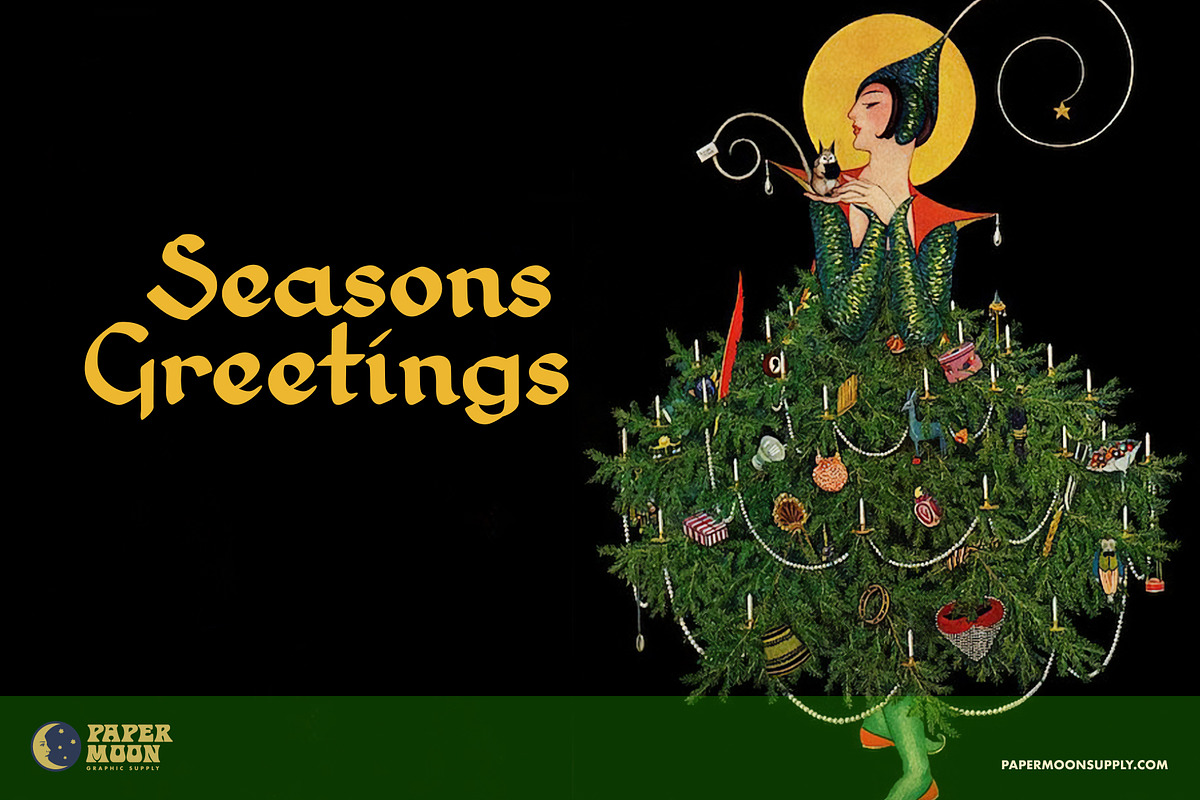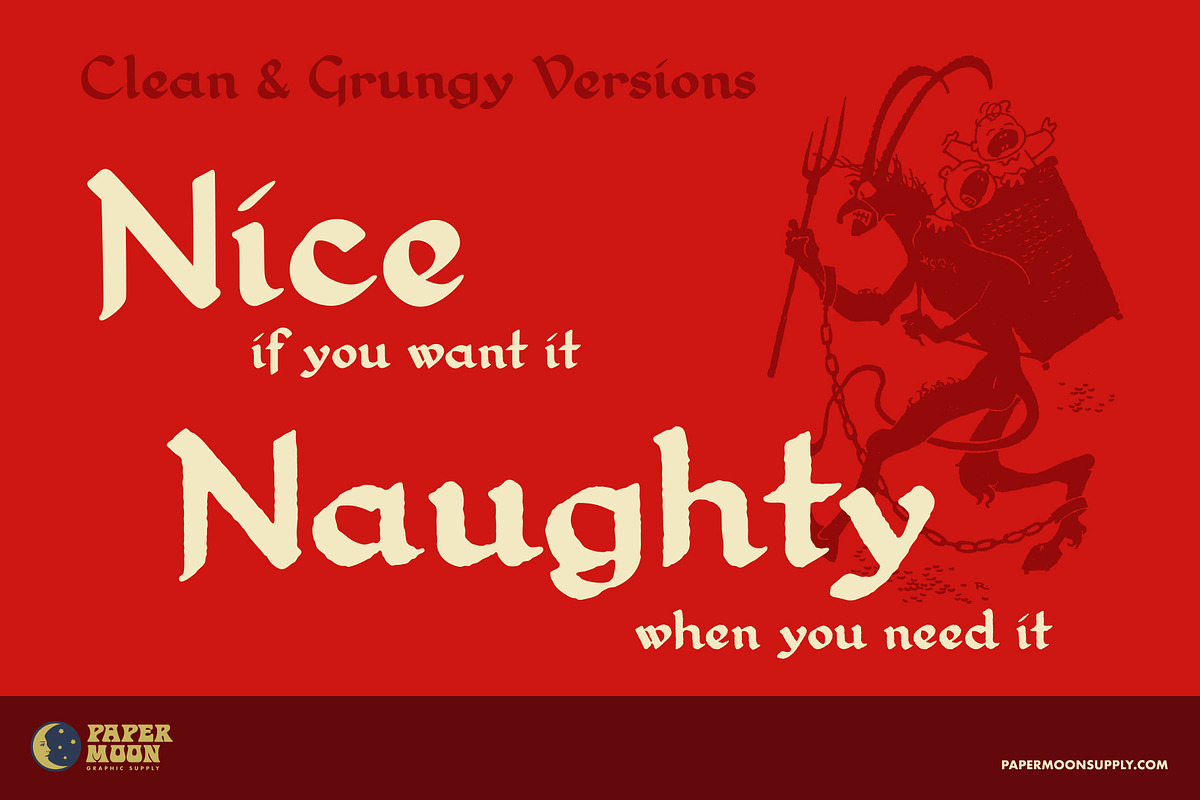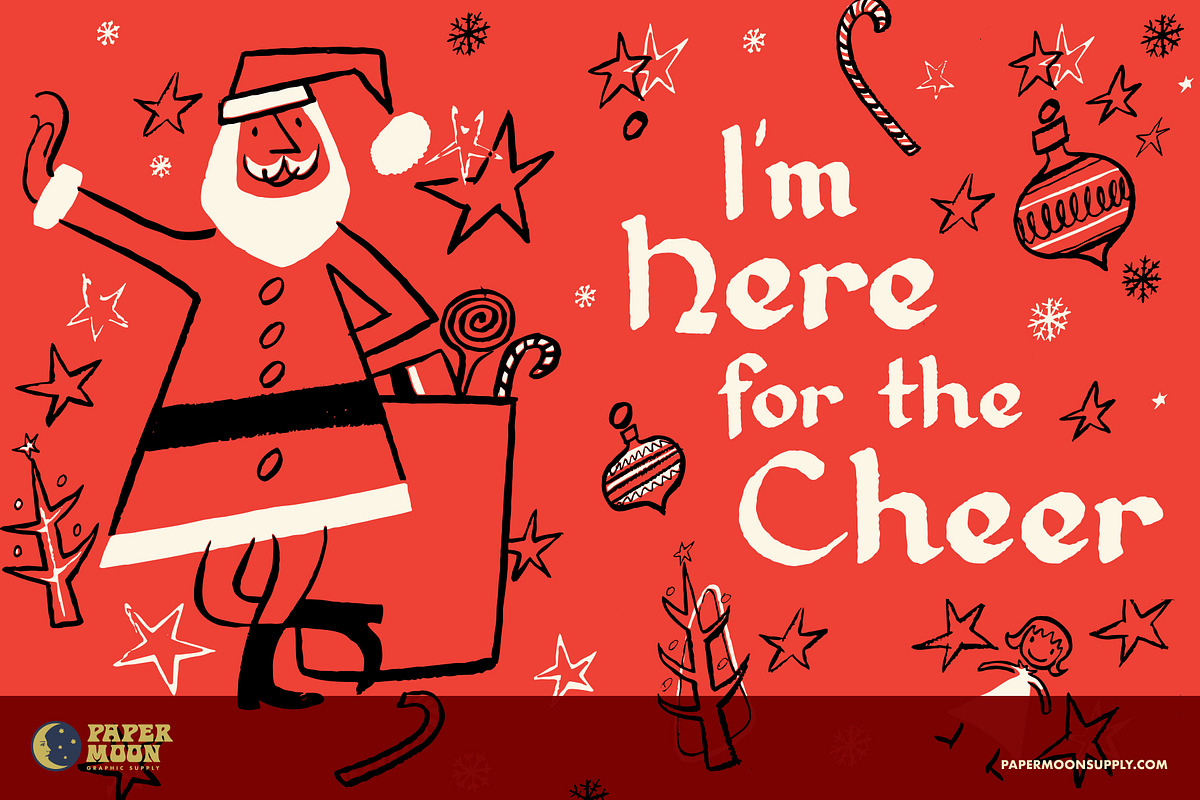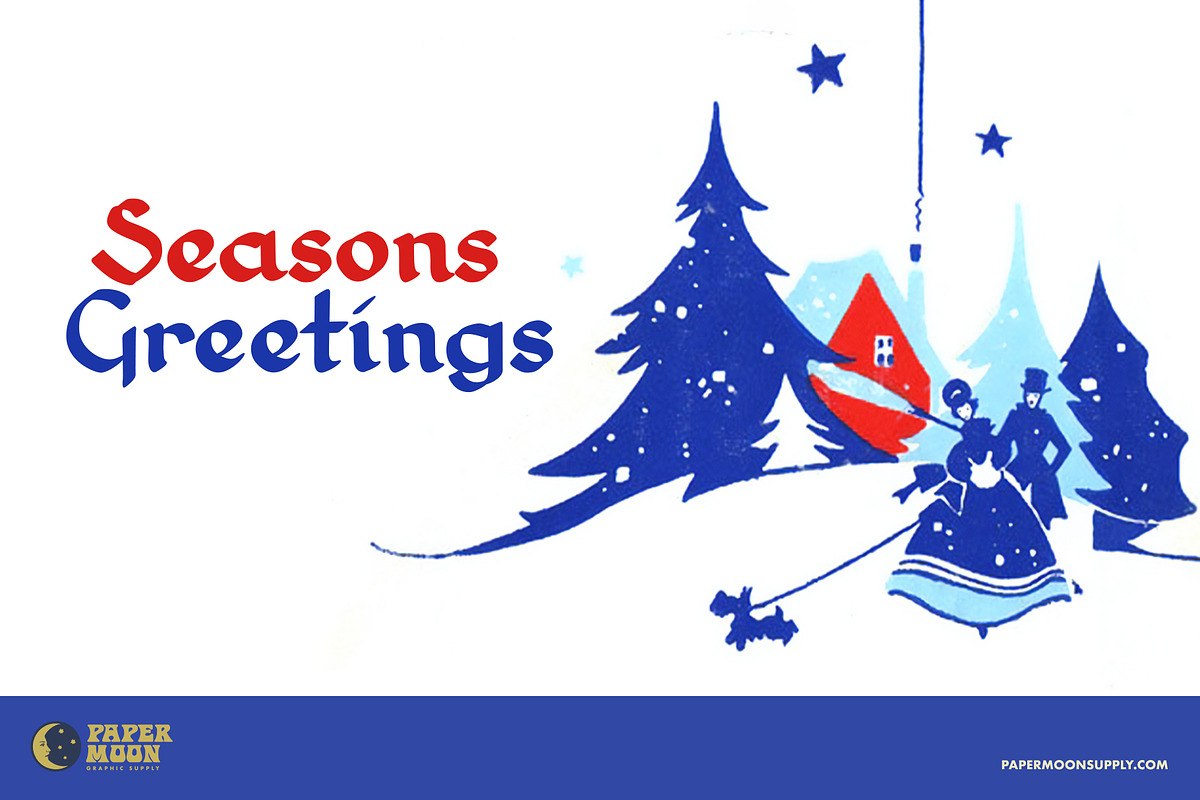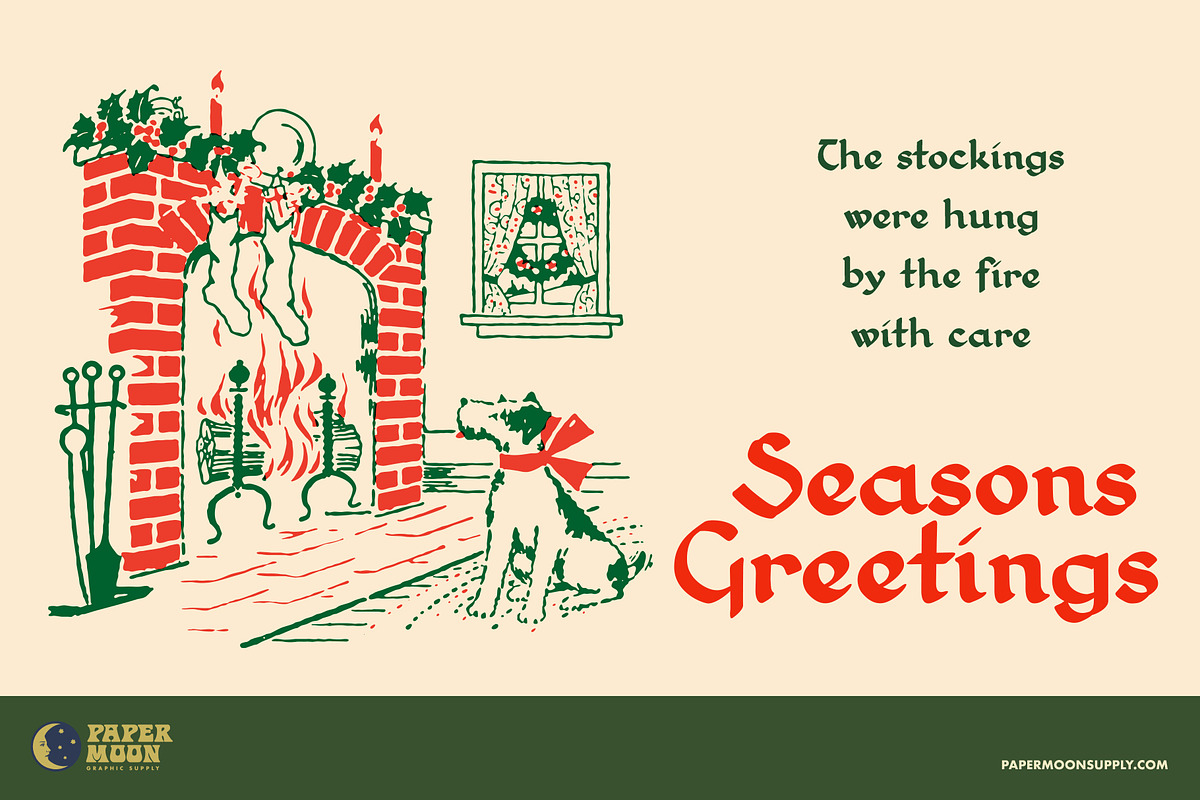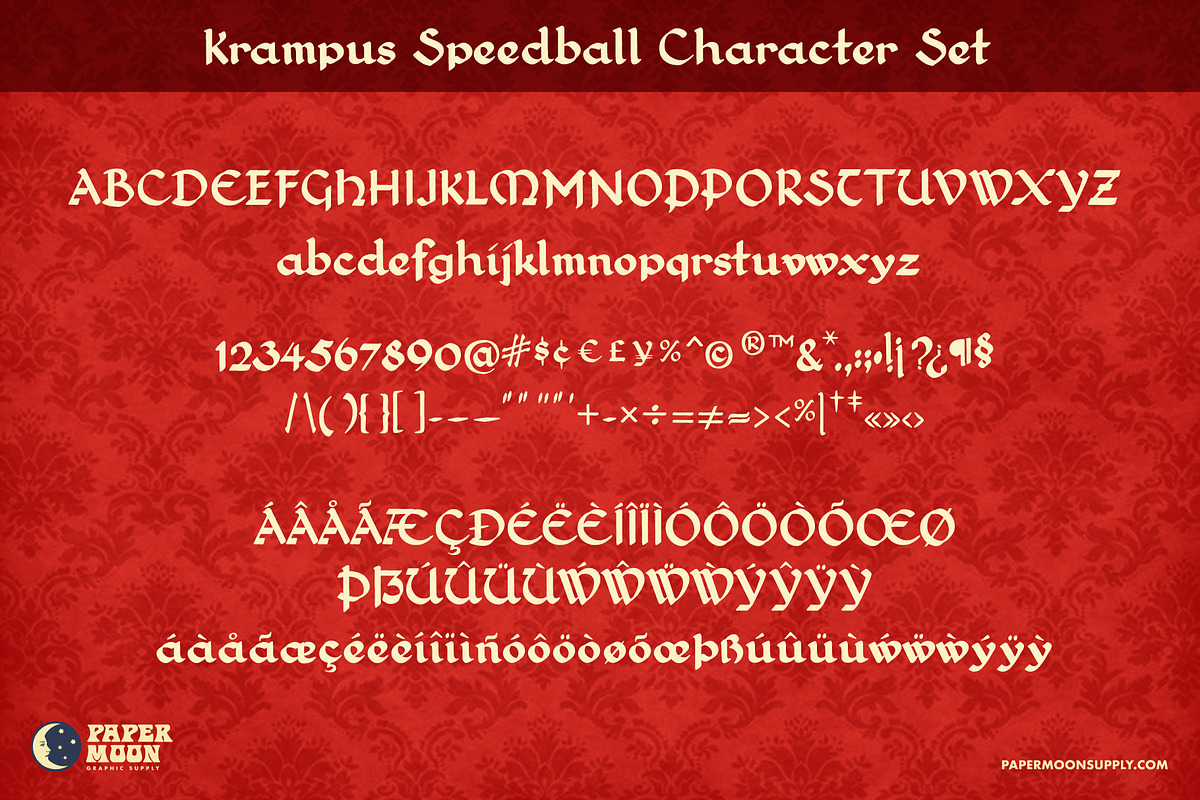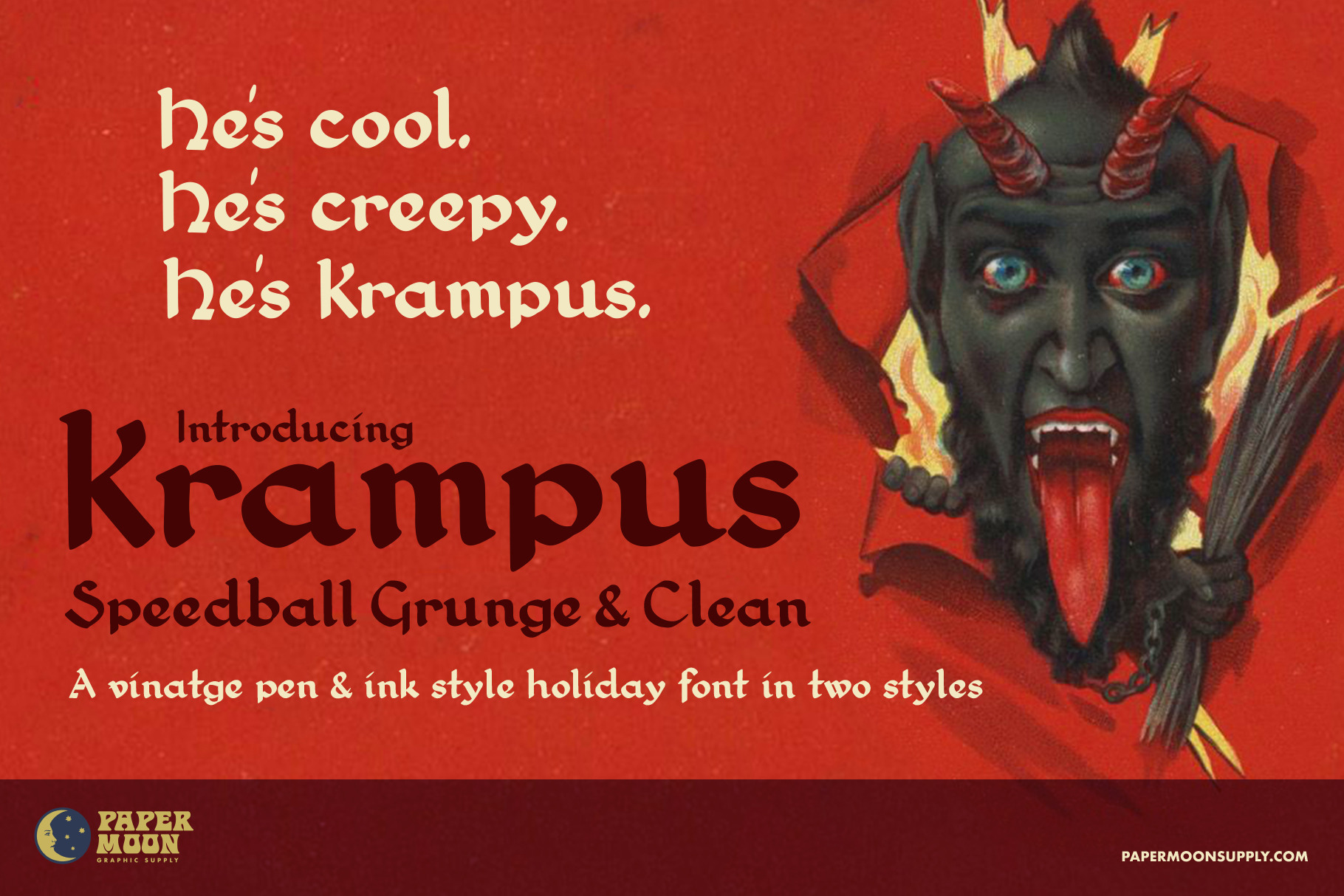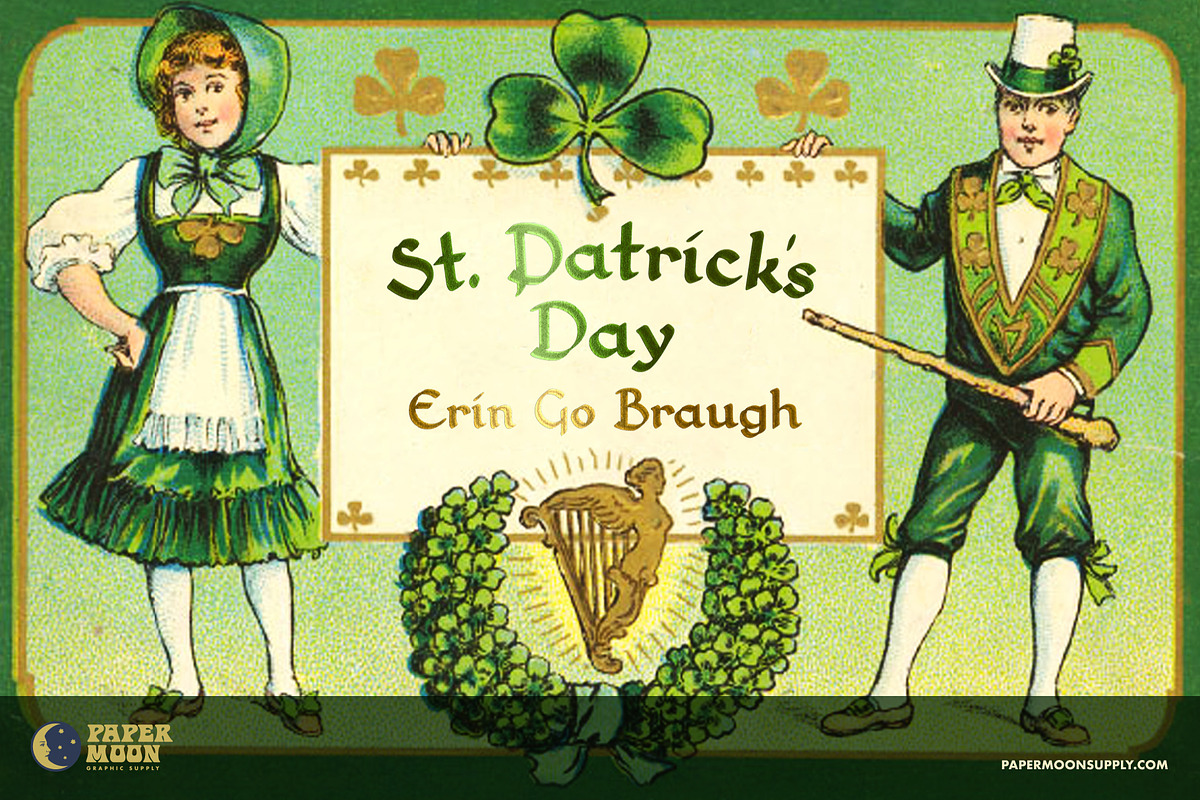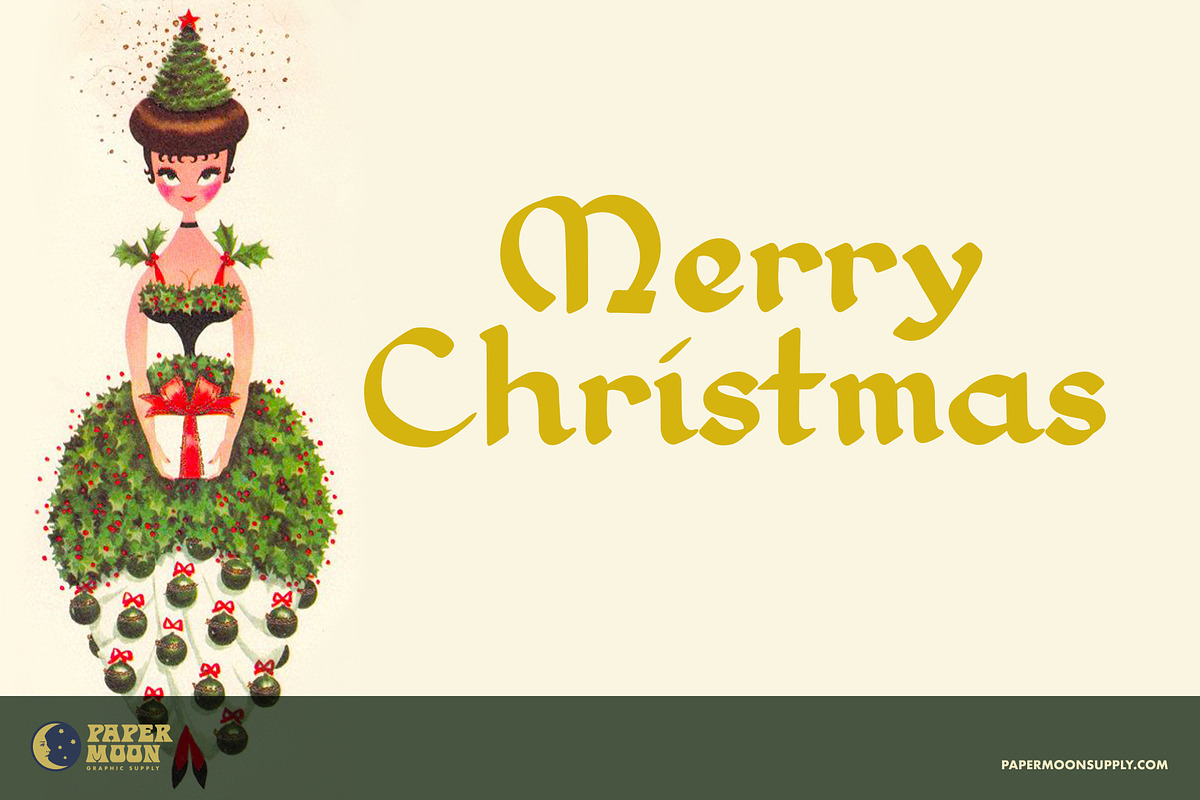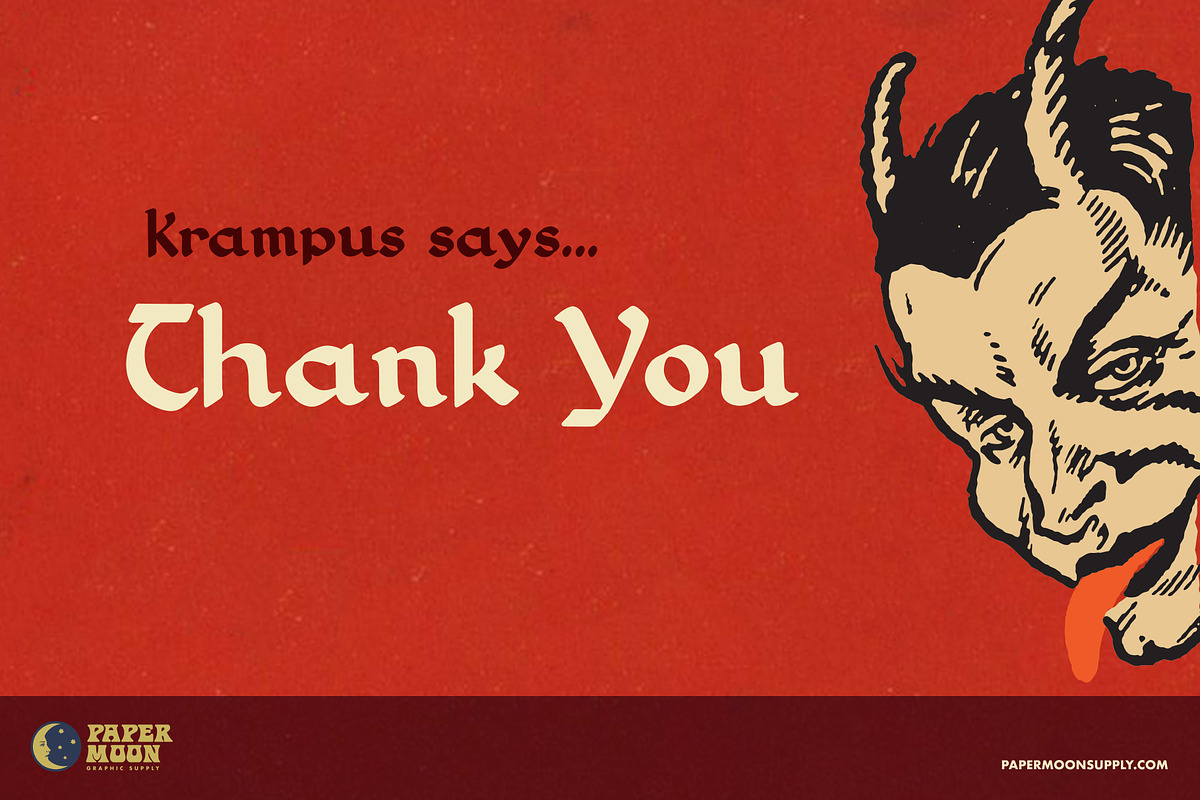
Krampus Speedball Vintage Font
A new font based on vintage Speedball pen & ink lettering using a metal-brush nib.
Krampus Speedball was digitized and redrawn from vintage type specimen sheets and includes an updated full-character set not included in the original 19th century character set. Though designed to work with our holiday clip art collections, they are perfect for any project that needs a vintage printed look.
Krampus Speedball is perfect for holiday designs, invitations, certificates, mockups, specialty packaging, and social media. Both the clean and rough version are beautiful plain or used with smart object foil stamp effects in Photoshop. Look at the amazing creative sample slides for inspiration.
- Full character set
- Multi-lingual support
- Over 250 glyphs including alternate characters
- Highly-detailed “rough” letterpress printed-style edges to match our vintage-style clip art
- Clean version for modern designs
Krampus Speedball was developed by award-winning illustrator and designer Scott Banks. Until now, this font was part of Scott’s personal collection of design resources. Now you can get this typeface for your personal arsenal.